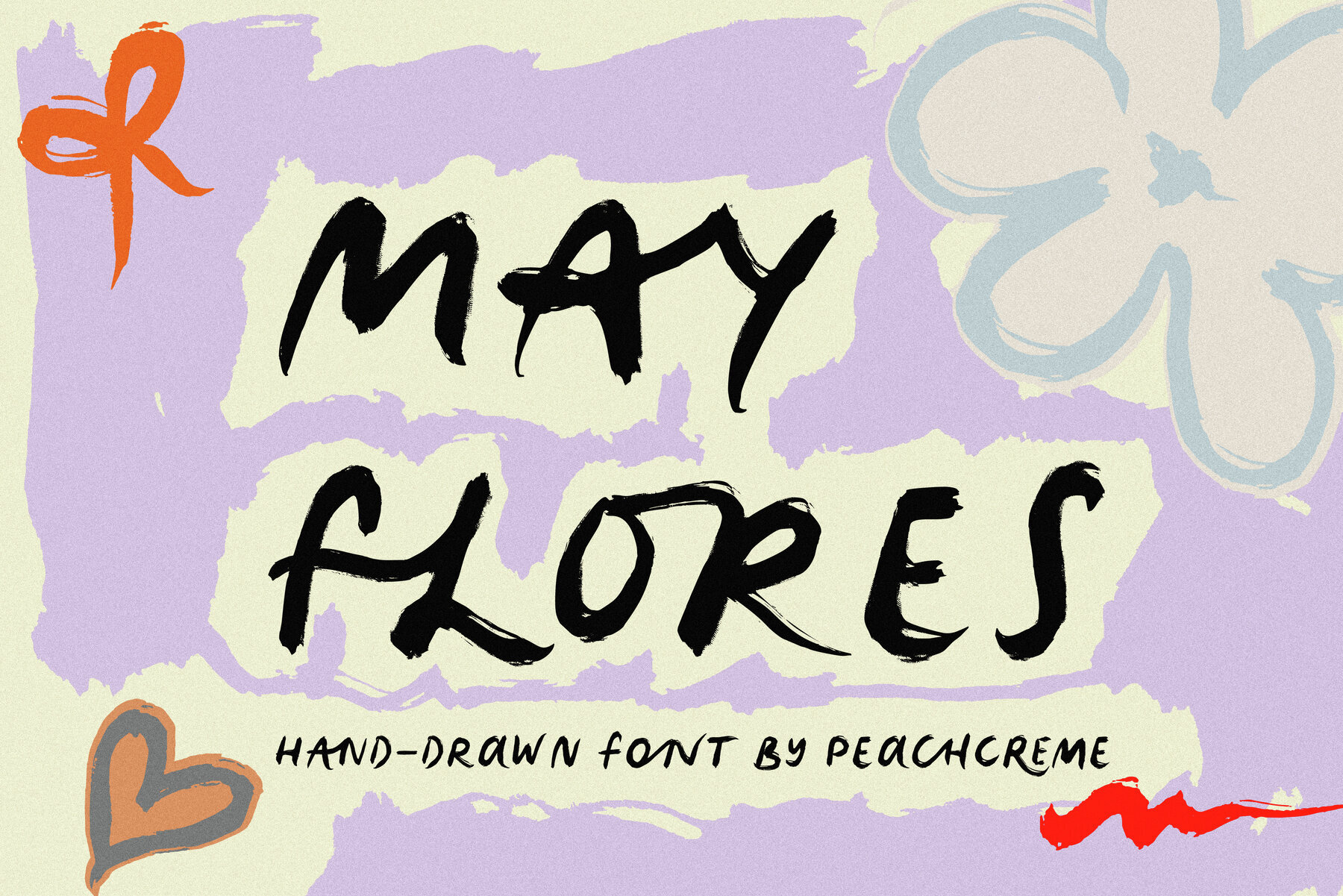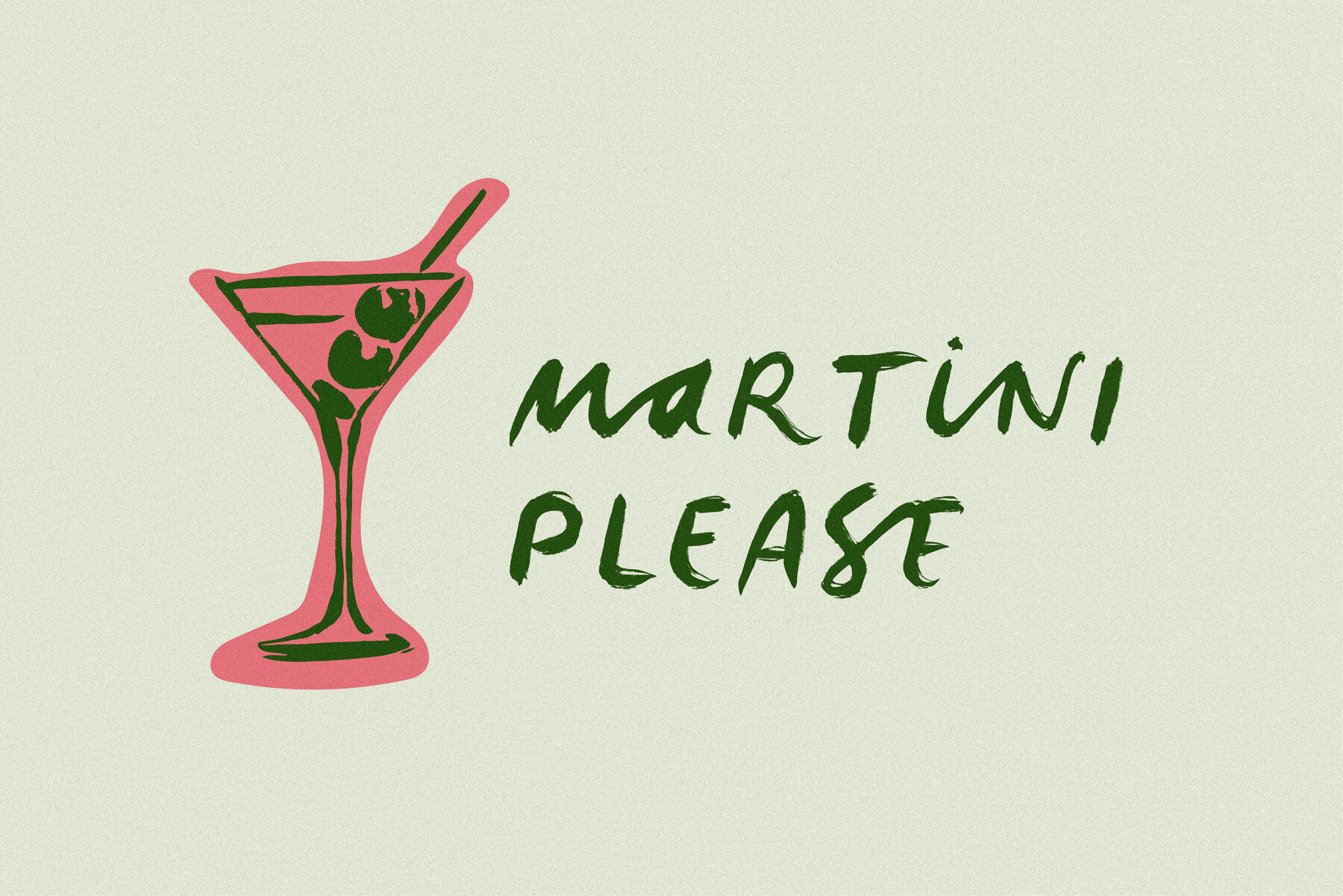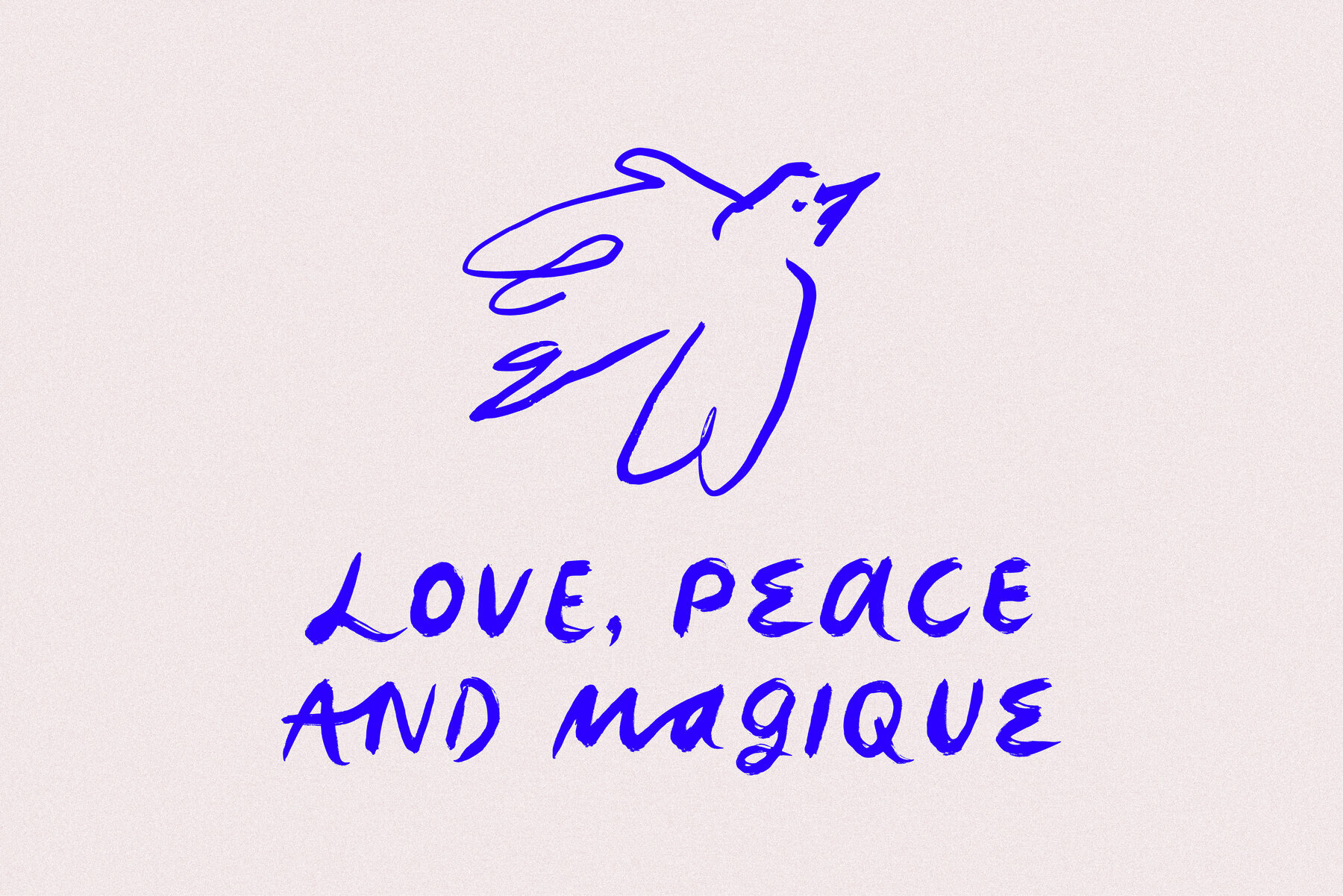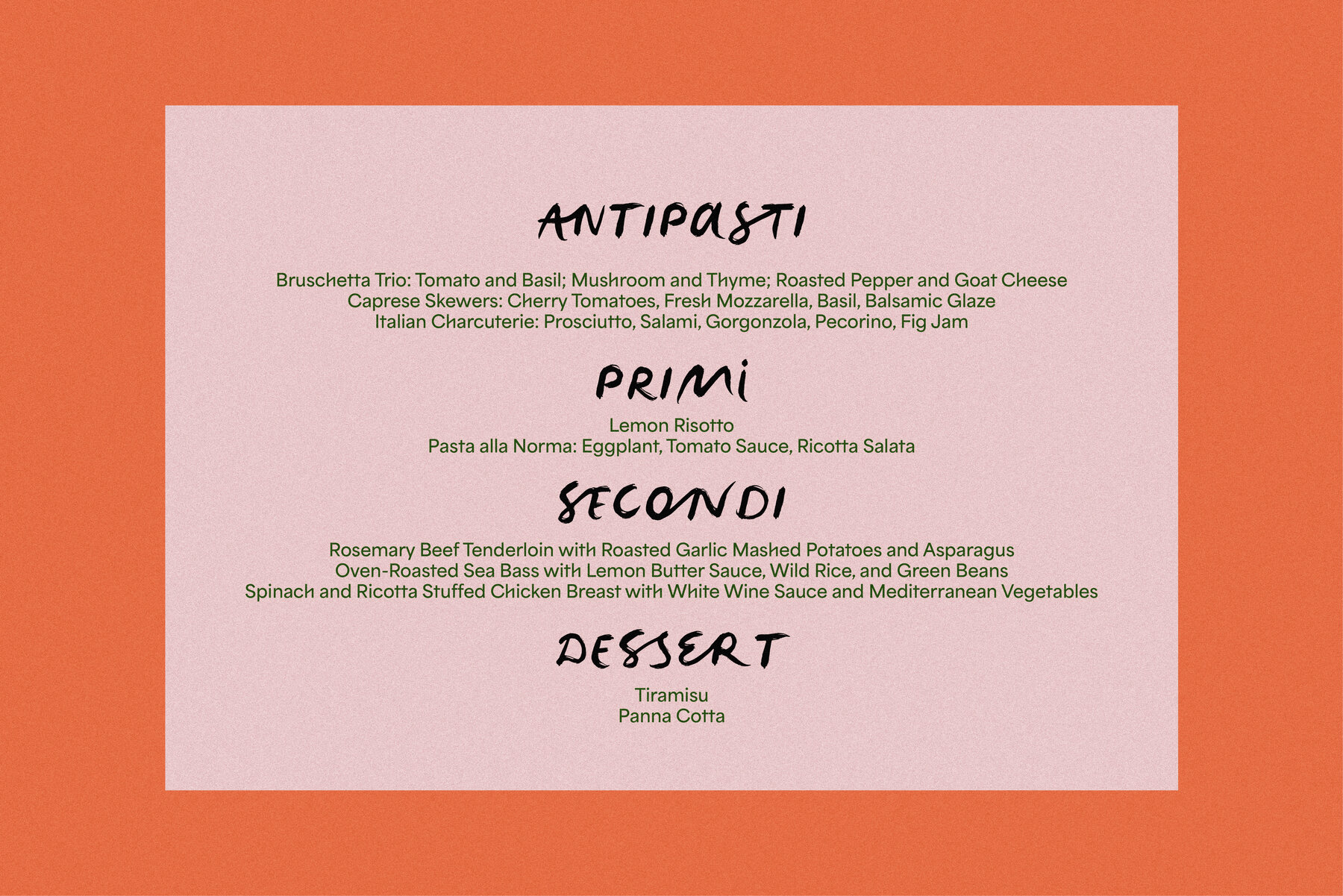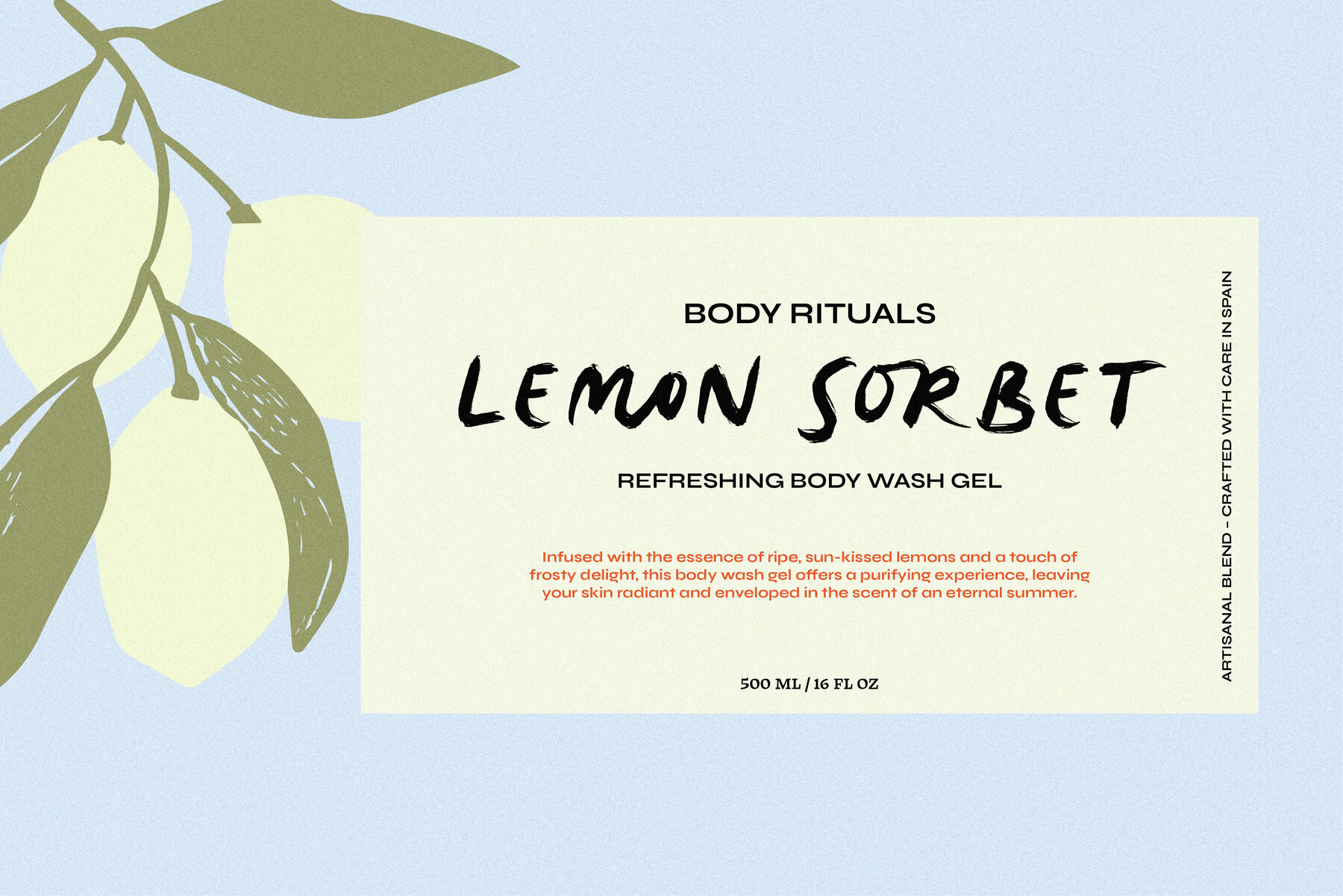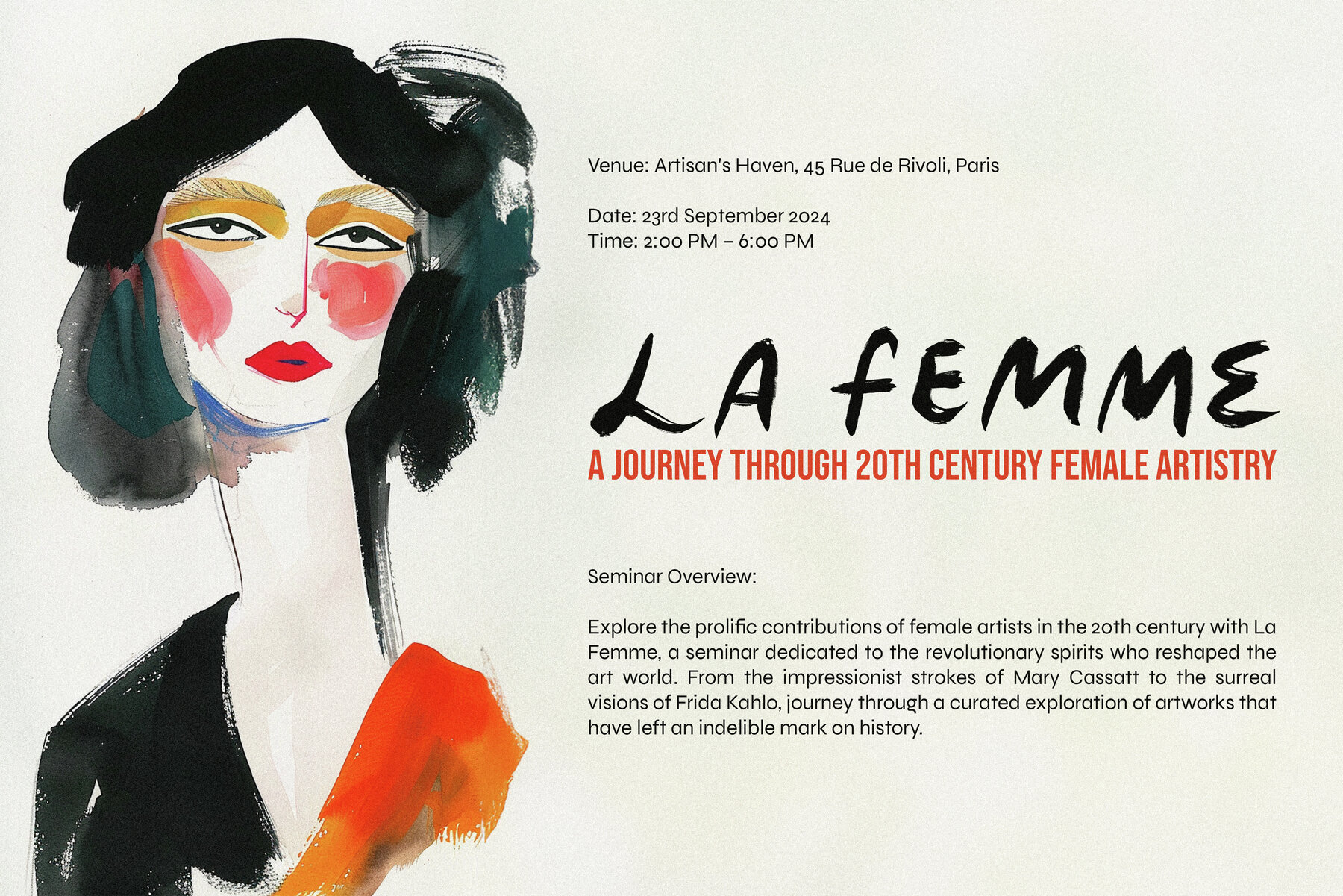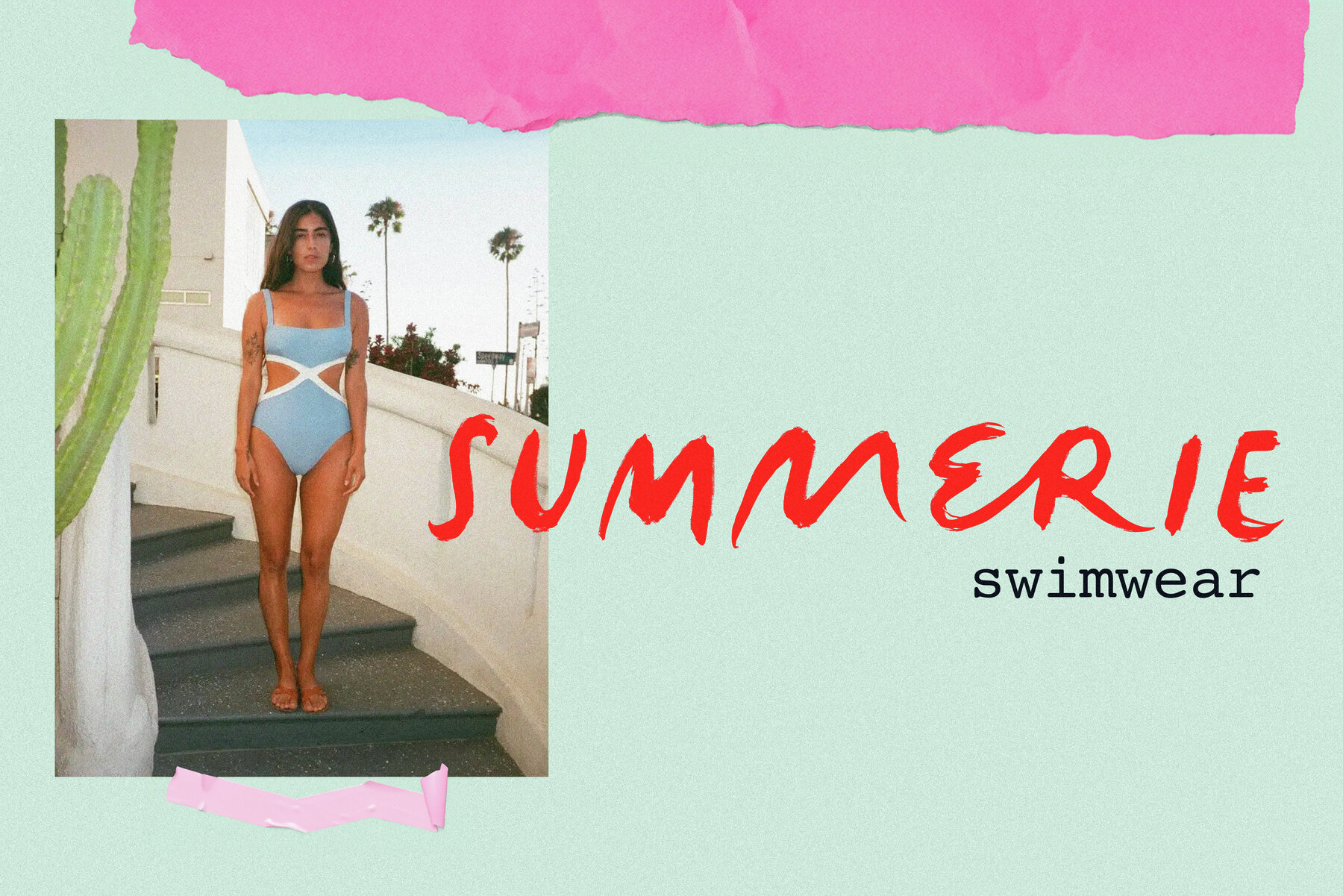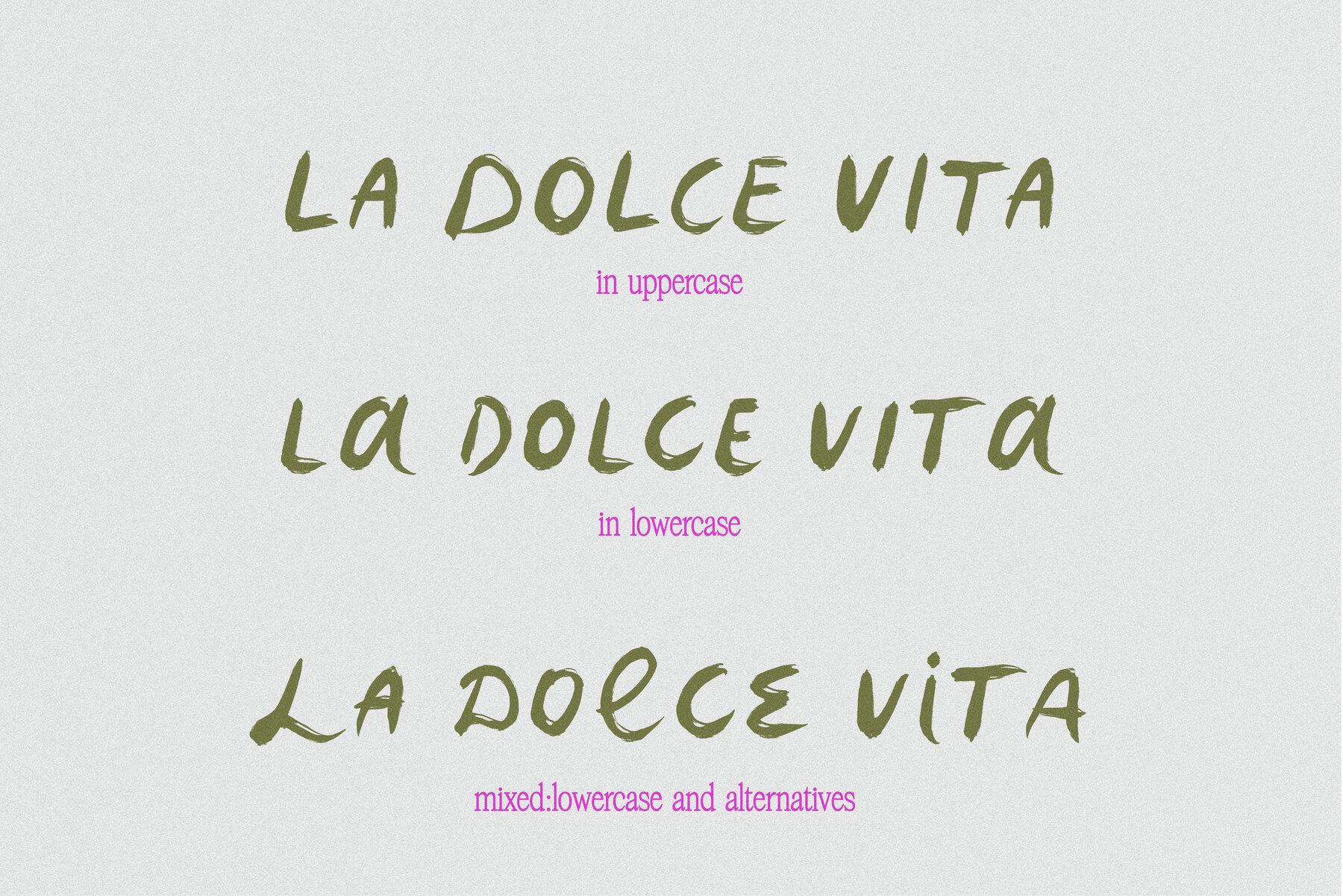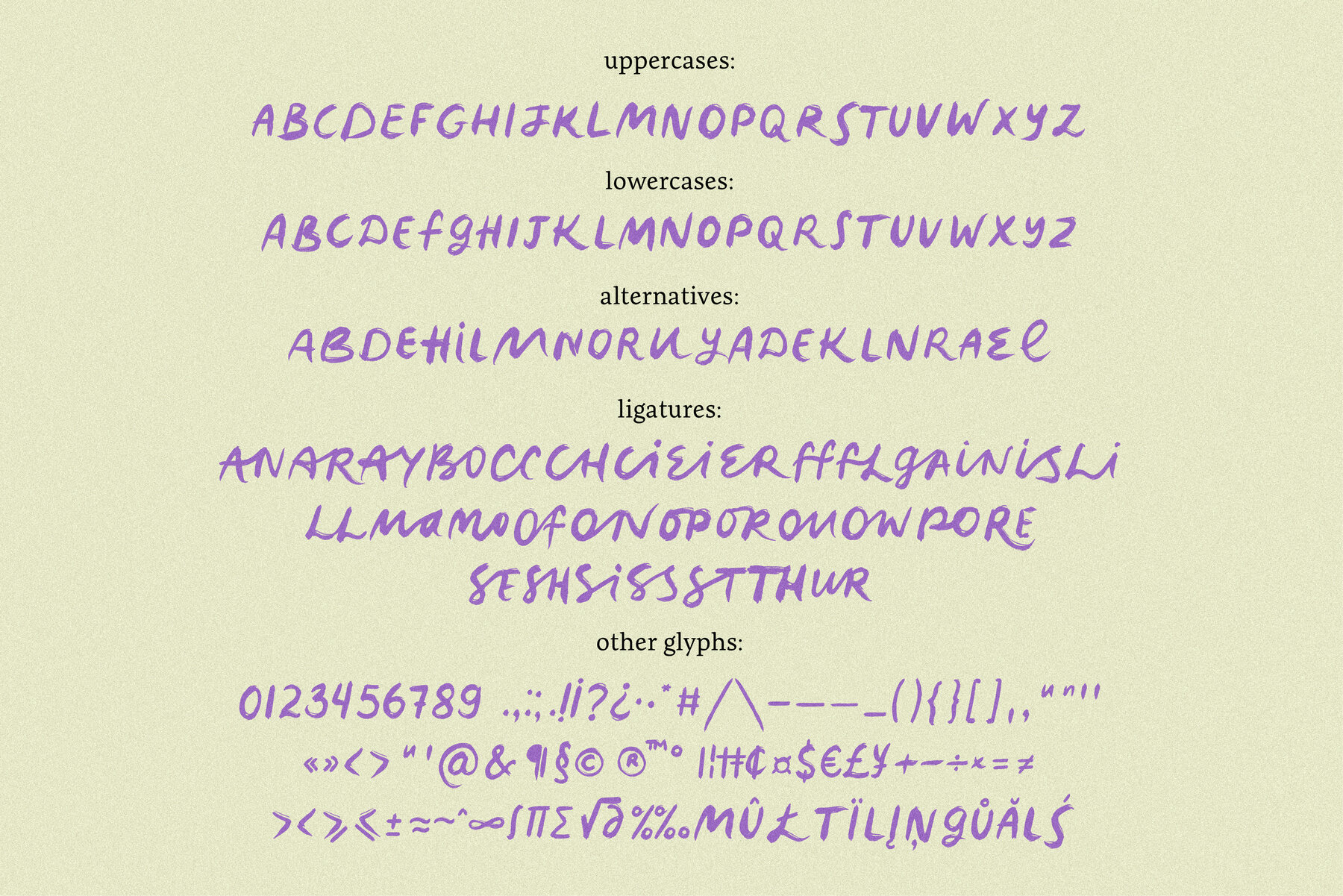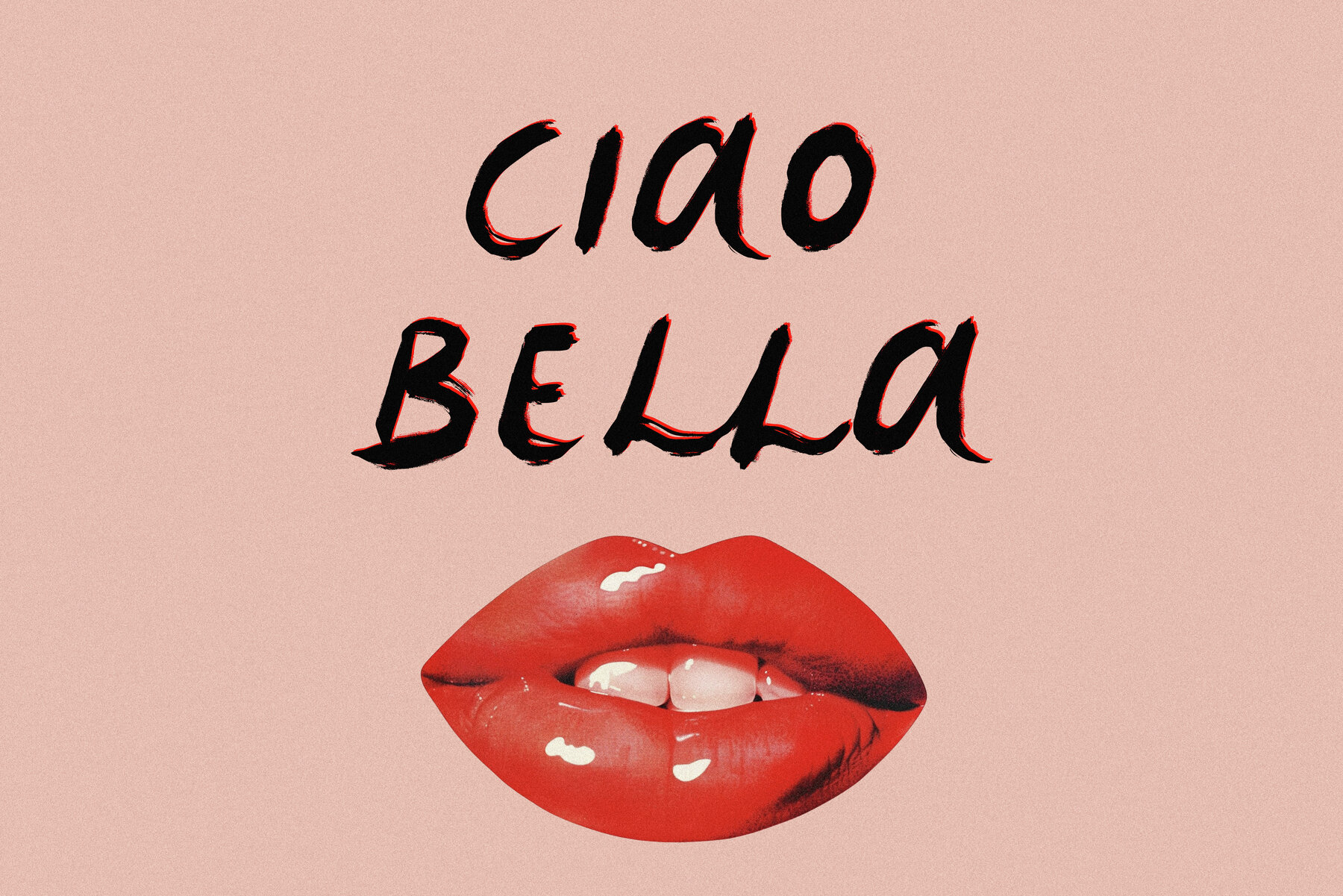
Mayflores Font
Mayflores Regular
"Mayflores" is a straightforward brush-stroke font with a casual, down-to-earth character. Each letter, whether uppercase or lowercase, carries its own unique twist, ensuring your text stands out in any context. Its fluid, organic strokes offer a handcrafted feel, perfect for adding a personal touch to any design.
With additional ligatures and alternatives, this font provides the versatility needed to create distinctive, memorable projects. The variety in letter forms allows for creativity and customization, bringing a genuine, authentic look to your work. Ideal for branding, social media graphics, and creative projects that require a personalized style.